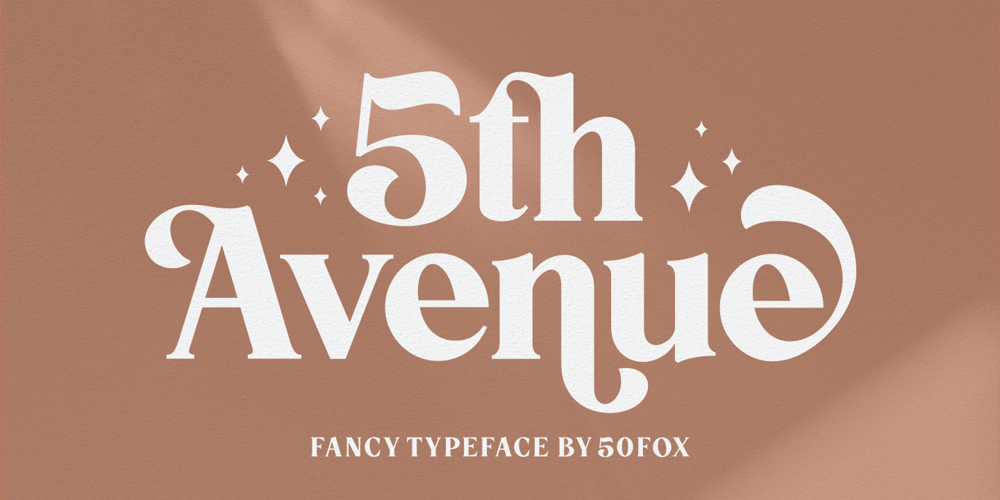
5th Avenue Font Family was designed by 50Fox Studio and published by 50Fox. 5th Avenue contains 2 styles and family package options. 5th Avenue is a brand new fancy font with tons of alternative characters, ornaments, multilingual support and unique ligatures.This family is inspired by some of the edgiest looks from the modern luxury fashion. 5th Avenue can impress us with its Classical Style by accessing tons of alternative letters in OpenType Features. You can also enhance its elegance simply by adjusting the spacing between the letters.5th Avenue is very versatile and perfect for branding projects, logos, magazine imagery, wedding invitations, posters, clothing, packaging, website headers, or simply as a stylish text overlays to any background image.Language support for 27 languages:Afrikaans, Albanian, Catalan, Croatian, Czech, Danish, Dutch, English, Estonian, Finnish, French, German, Hungarian, Icelandic, Italian, Latvian, Lithuanian, Maltese, Norwegian, Polish, Portugese, Slovak, Slovenian, Spanisch, Swedish, Turkish, ZuluFollow my shop for upcoming updates & freebies. Any questions? feel free to send me a message.